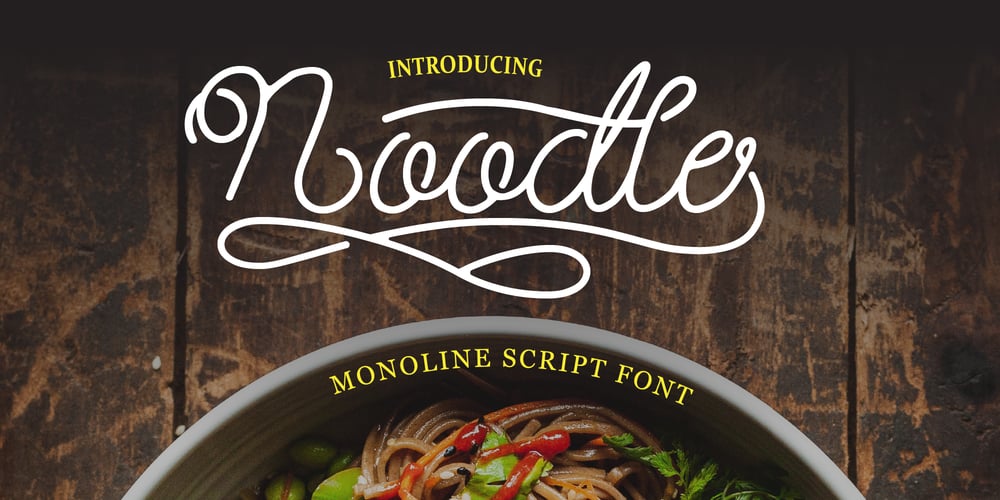
Noodle Monoline Font Family was designed by Wahyu Aji Prasetyo and published by WAP Type. Noodle Monoline contains 1 styles and family package options. Noodle monoline script, Script is modern calligraphy script font, every single letters has been carefully crafted to make your text looks beautiful. With modern script style this font will perfect for many different project, example: invitations, greeting cards, posters, name card, quotes, blog header, branding, logo, fashion, apparel, letter, stationery and more!